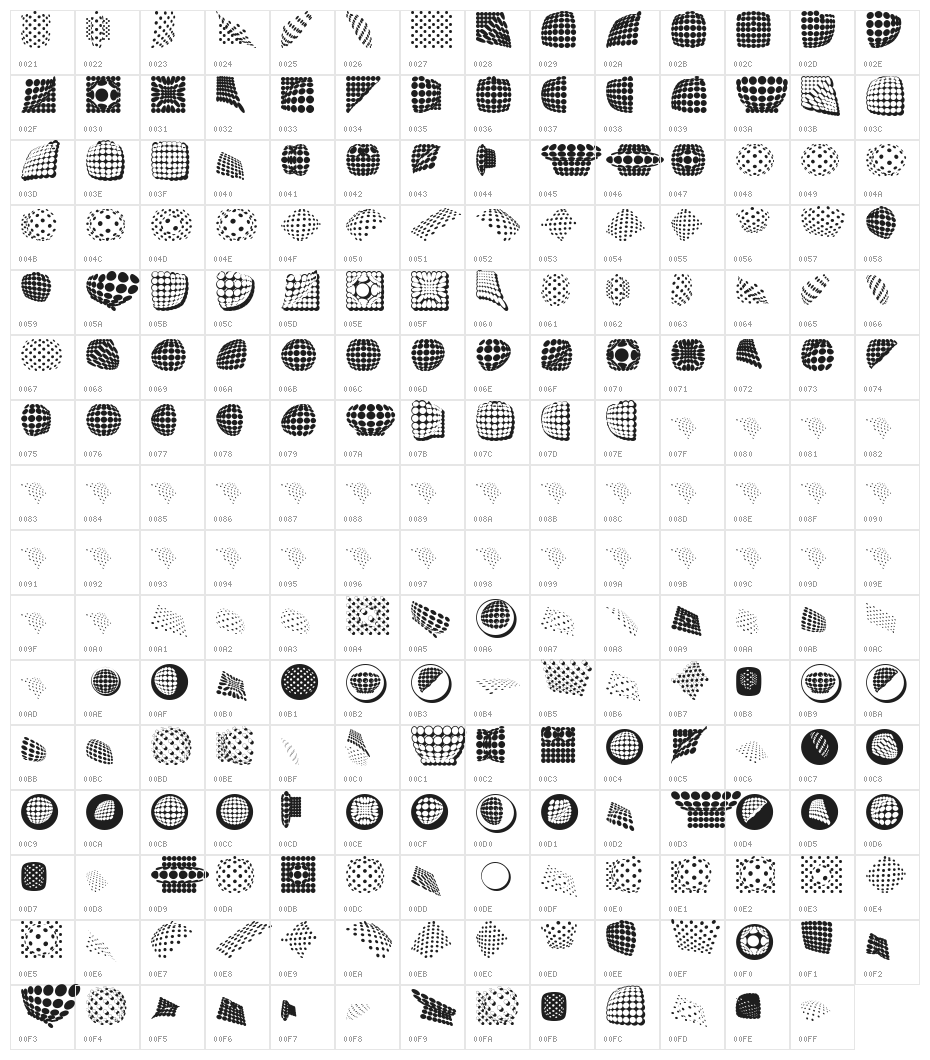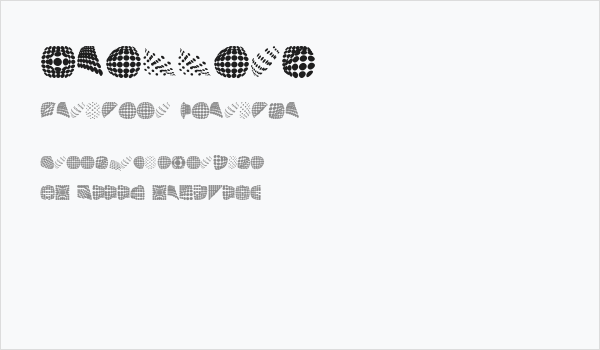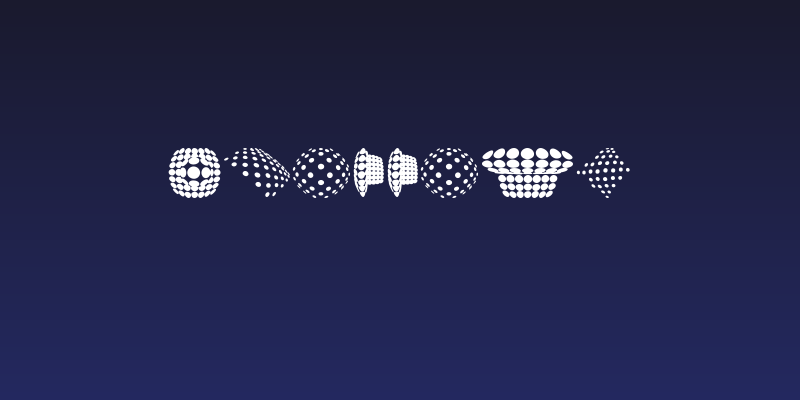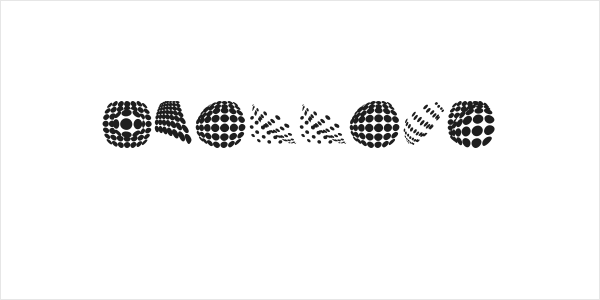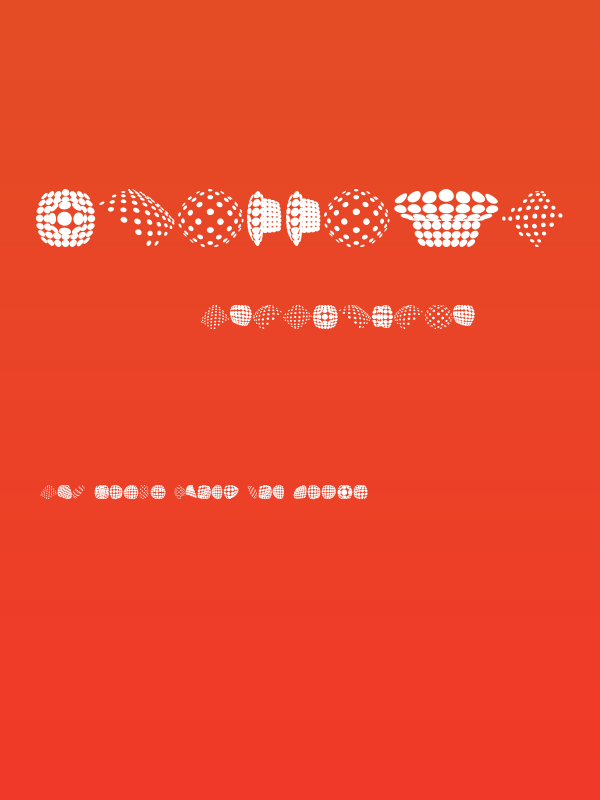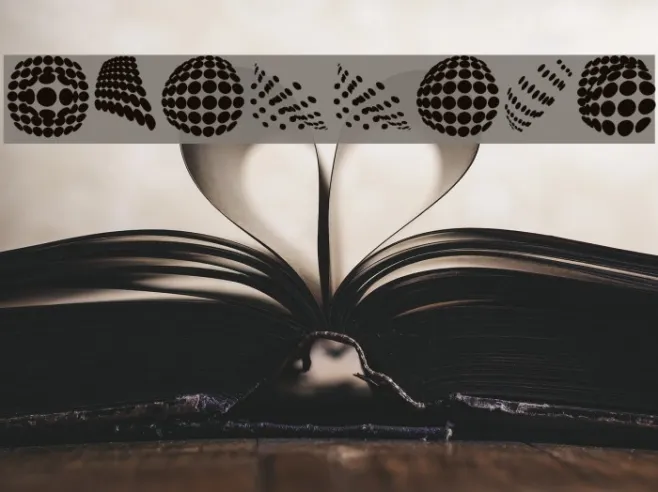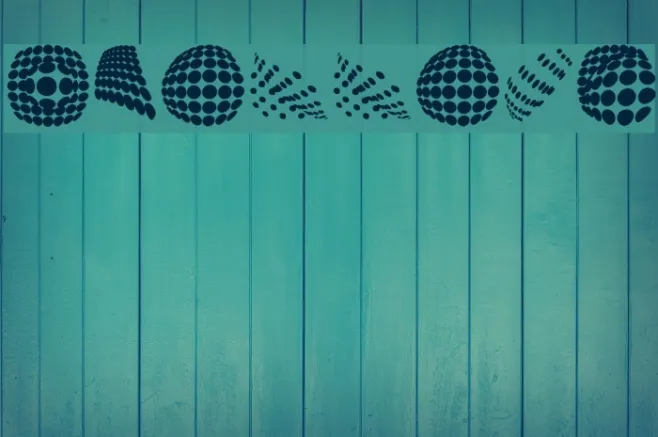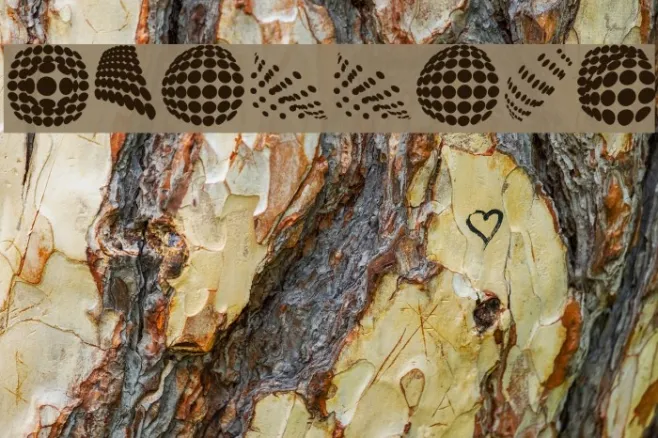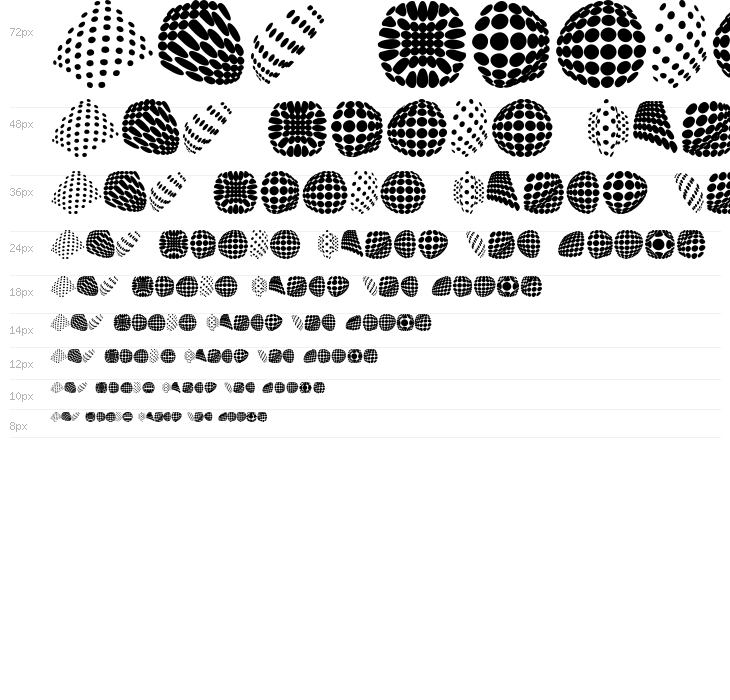
Griddies Font
Griddies Description
This font is a highly decorative and abstract design, characterized by its use of circular patterns and dot matrices to form each character. The letters and numbers are composed of varying sizes of dots, creating a visually striking and unique appearance. The design gives a sense of movement and dimension, as if the characters are emerging from a grid of dots. This font is not intended for readability in body text but rather for artistic and display purposes where visual impact is prioritized over clarity. The playful and dynamic nature of the design makes it suitable for creative projects that require a bold and unconventional aesthetic.
| Use Case | Logos, Headlines, Artistic Displays |
| Proposed Projects | Ideal for artistic posters, album covers, modern art installations, and creative branding projects. |